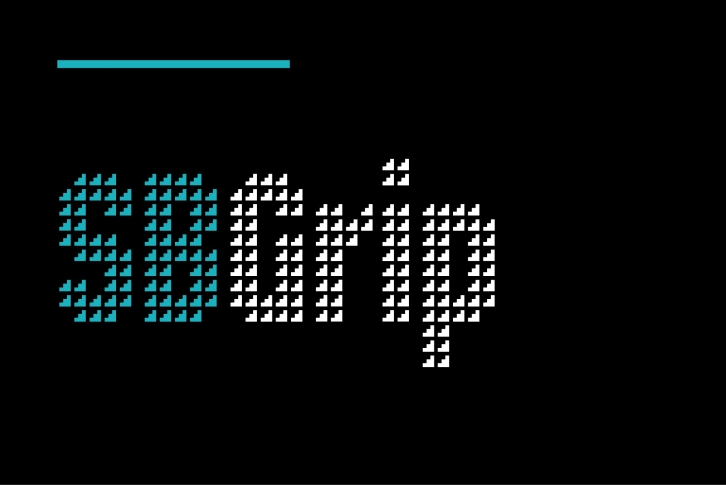
SB Grip is a pixelfont from the revival of bitmapped lettering that occurred during the early 2000s, as designers grappled with ways to tackle the slow loading and low-resolution internet of the day. Many pixelfonts at the time were designed for more practical text use, but there were also display pixel fonts. SB Grip is one of this type of pixel font and was designed to be layered over imagery and photography, and so has a semi-transparent treatment, at least in bitmap terms. Compared with other pixel fonts, which are often optimised to be used at 10-12px, SB Grip is a large typeface, being designed to be used at a size of 40px and multiples of 40px. It works well layered over other elements and has a pattern-like quality due to its repeating segmented design. SB Grip takes its name from its similarity to the type of gripped flooring that also features a repeating pattern.